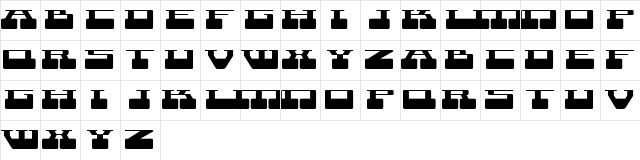
Terra X Regular Free Font
Terra  X Regular
Design Context for Terra X
Terra X is a composed and adaptable typeface that performs quietly and consistently across a wide range of design contexts.